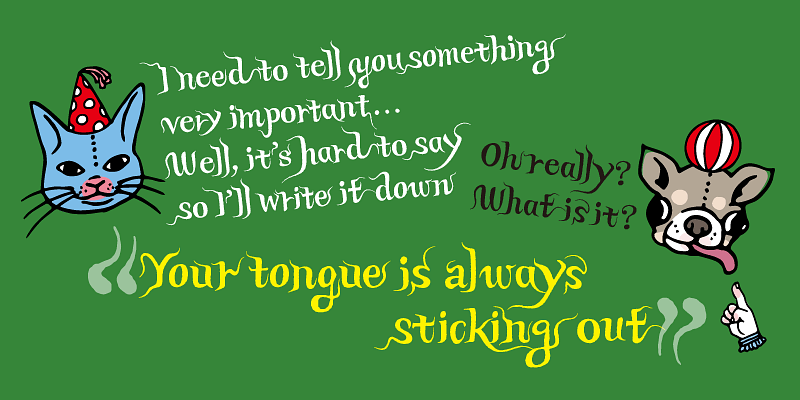
Higumin Font Free Download is a fun and quirky display typeface with a distinctly handmade and playful aesthetic. Its rounded shapes, irregular strokes, and friendly personality make it perfect for children’s books, casual branding, creative posters, and social media content that calls for a warm and approachable vibe.
Higumin stands out with its cartoonish charm and informal feel, offering a delightful touch to any project that needs to feel personal and lighthearted. Whether you're working on a school project, crafting merchandise for a cute brand, or creating illustrations with expressive typography, Higumin Font Free Download brings joy and character to your design.
This font is especially effective in headers, quotes, and branding where emotion and friendliness are key. It pairs well with clean sans-serifs or decorative elements to amplify its cheerful energy.